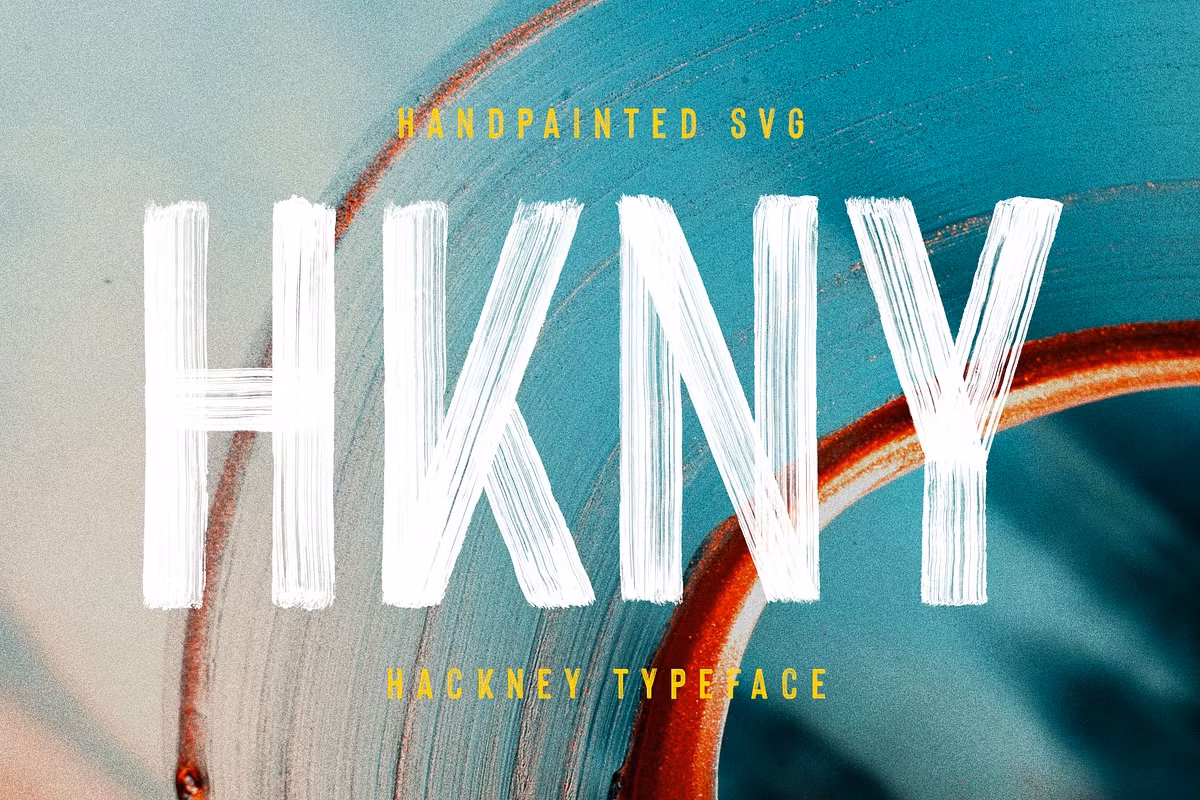
Hackney SVG - Bold Hand-painted Font Free Download
Hackney SVG Font Free Download is a bold, hand-painted typeface that brings raw energy and artistic texture to your design projects. With its high-resolution SVG format, this font captures every brushstroke and paint detail, making it ideal for headlines, posters, merchandise, album covers, and anything that demands a striking, handcrafted look.
Created to stand out, Hackney SVG combines modern design with gritty realism. Each character is rich with texture, giving your typography an authentic brush-painted feel that can’t be replicated by traditional fonts. It includes uppercase letters, numbers, and essential punctuation—perfect for dynamic and expressive visuals.
Whether you're crafting a rebellious streetwear brand or designing bold social content, Hackney SVG Font Free Download gives your work that fierce, painted edge. You can try it now for free in personal projects to feel its impact firsthand. For commercial use, make sure to obtain the proper license. Add bold strokes and handcrafted soul to your next creation with this eye-catching font.